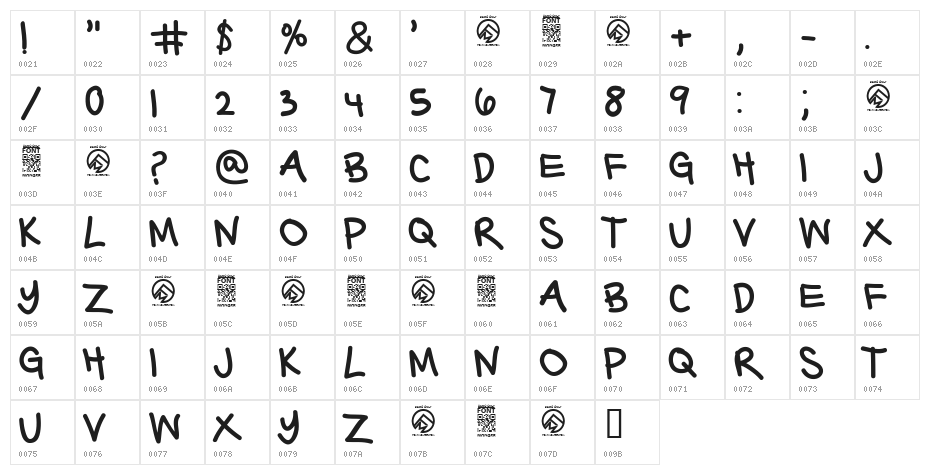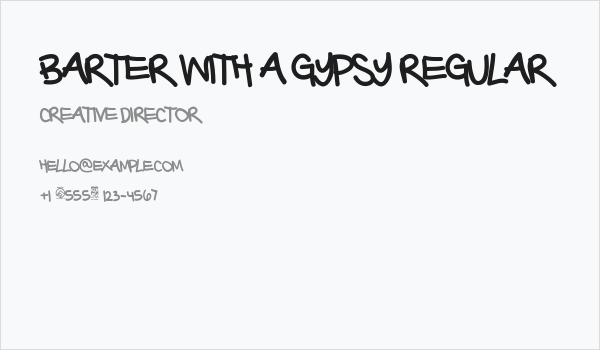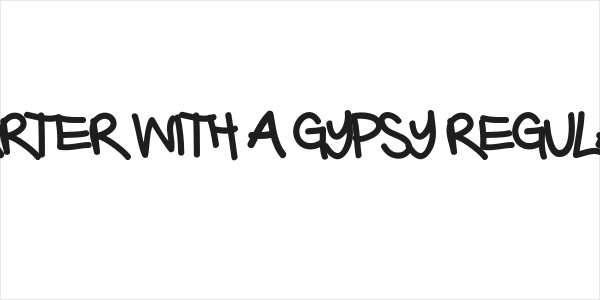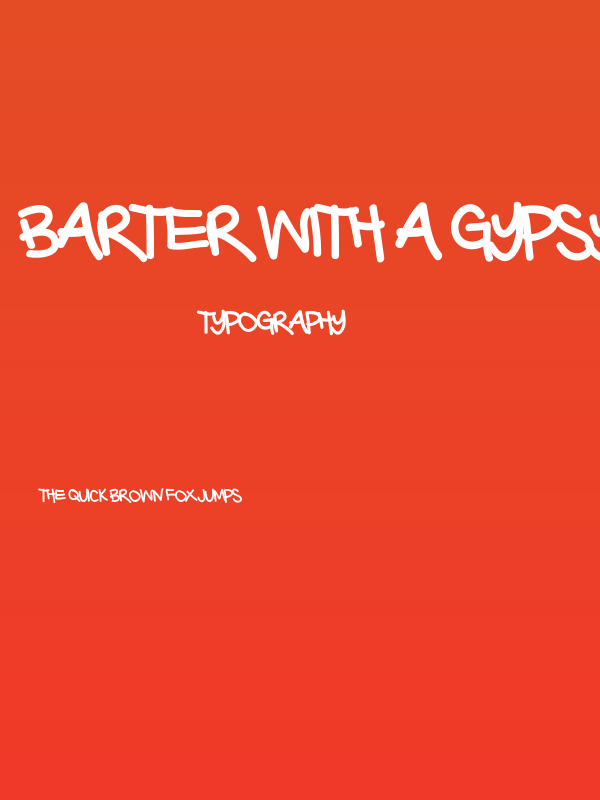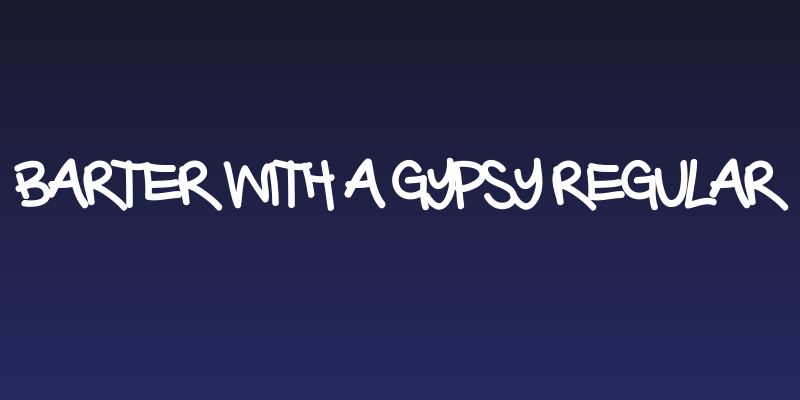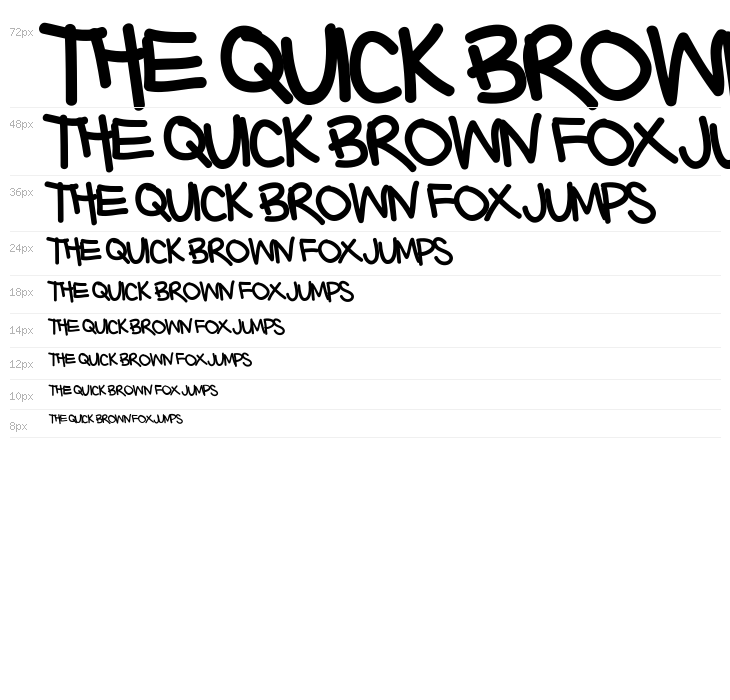
Barter with a Gypsy Regular Font
Barter with a Gypsy Regular Description
This font features a bold, handwritten style with a playful and casual appearance. The letters are rounded and slightly irregular, giving it a friendly and approachable feel. The uppercase and lowercase characters maintain a consistent thickness, contributing to a uniform look across the text. The numbers and special characters follow the same design principles, ensuring cohesion throughout. The font's informal style makes it suitable for creative and fun projects, where a relaxed and personal touch is desired.
Overall StyleCasual
Use CaseHeadlines, Logos, Informal Text
Proposed ProjectsIdeal for children's books, greeting cards, posters, and informal branding.